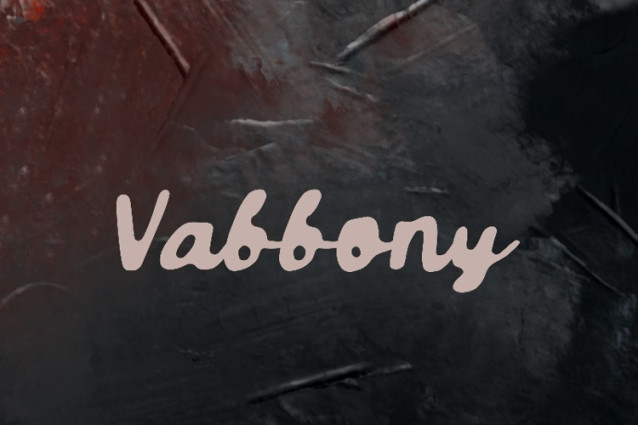
Vabbony Script Font
Vabbony Script Font, suitable for any design needs : logo, branding, modern advertising design, logos, poster quote, book / cover Title, editorial design, website / blog, card, t-shirts, and any hand-lettered needs.